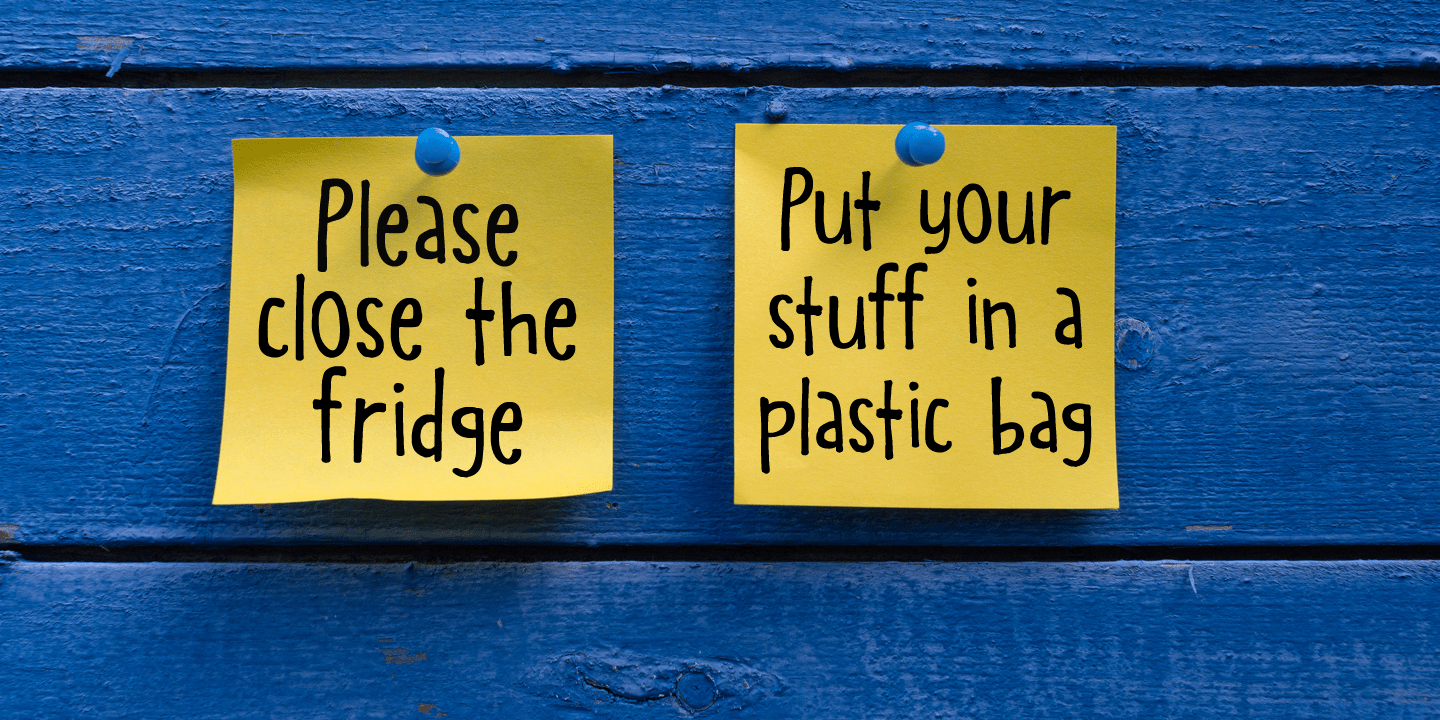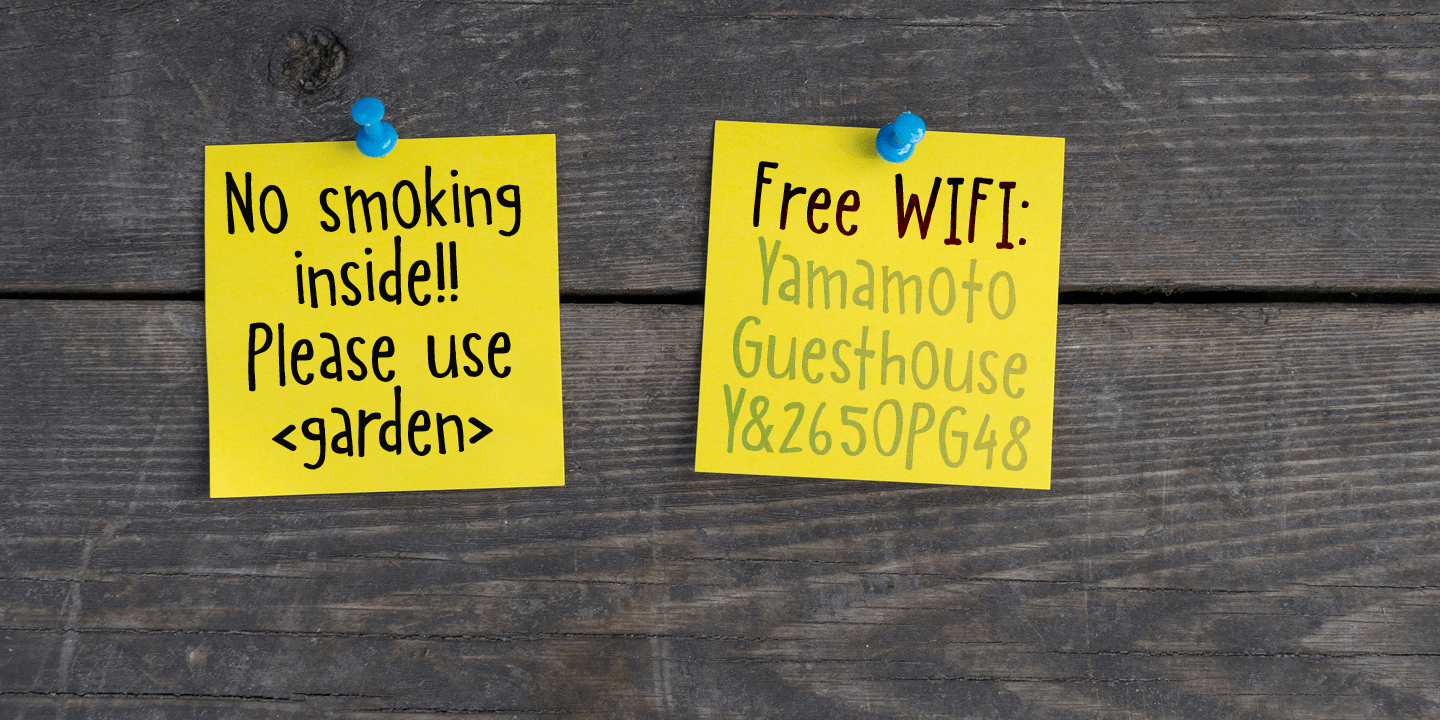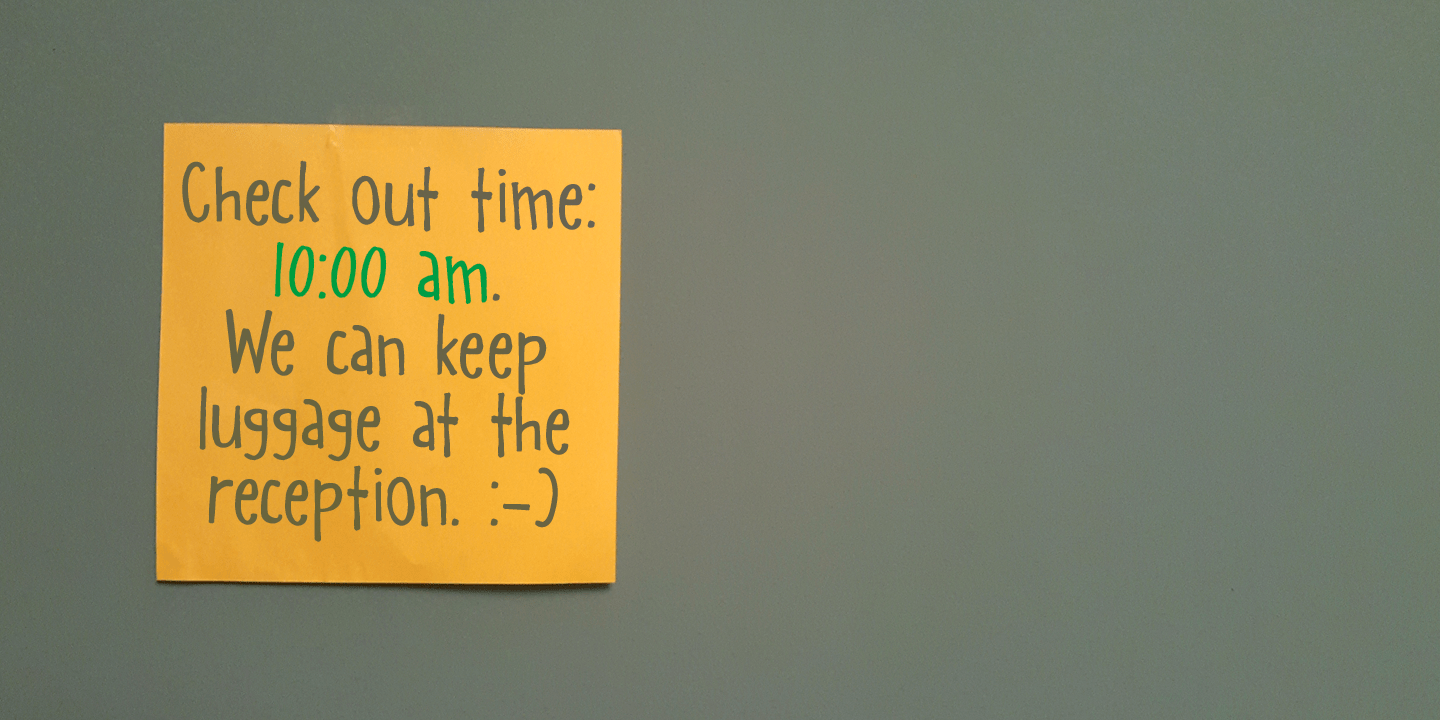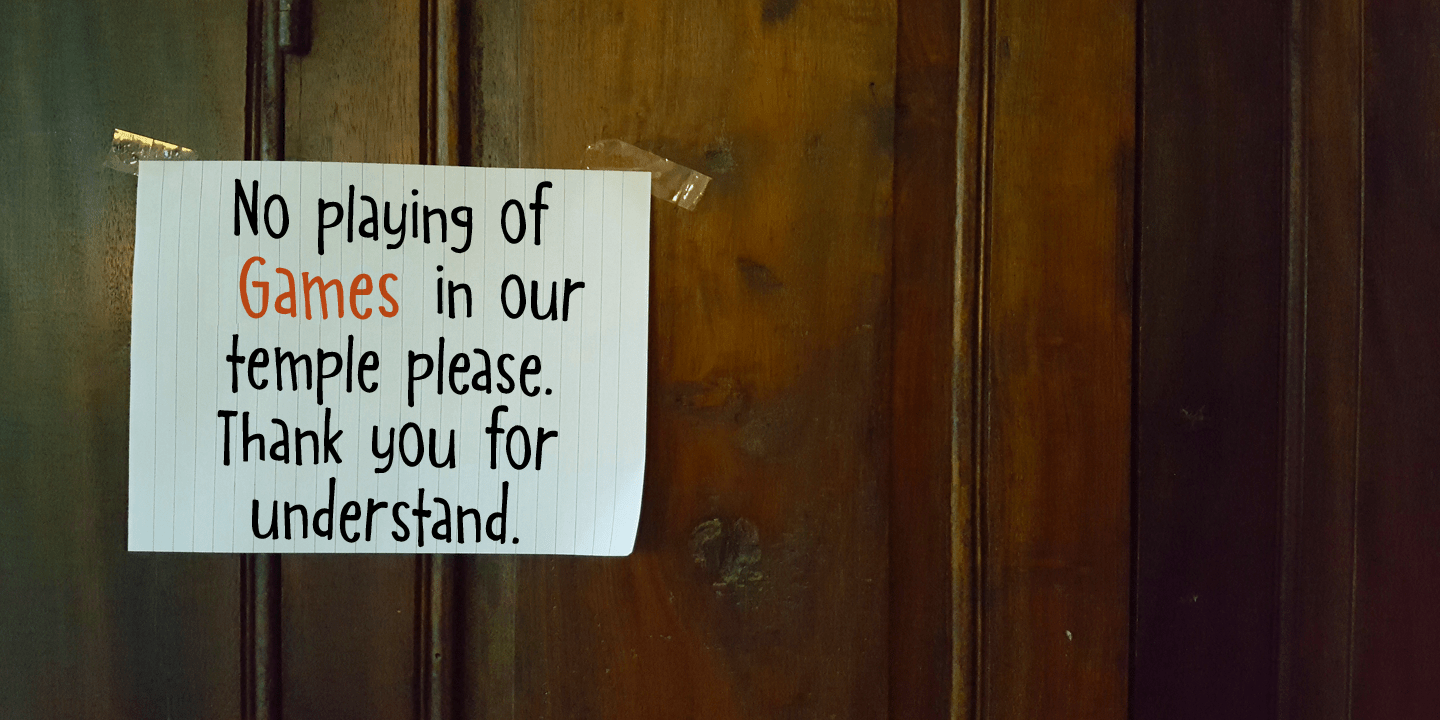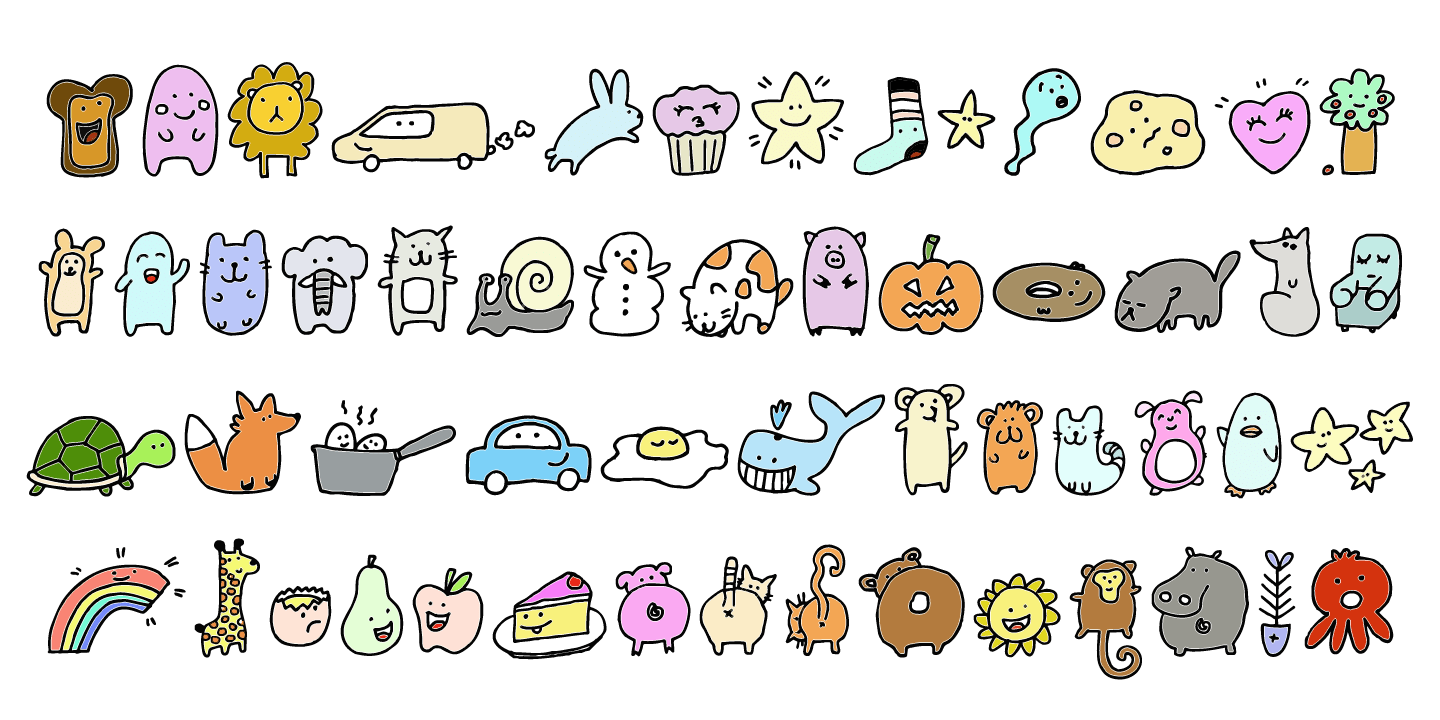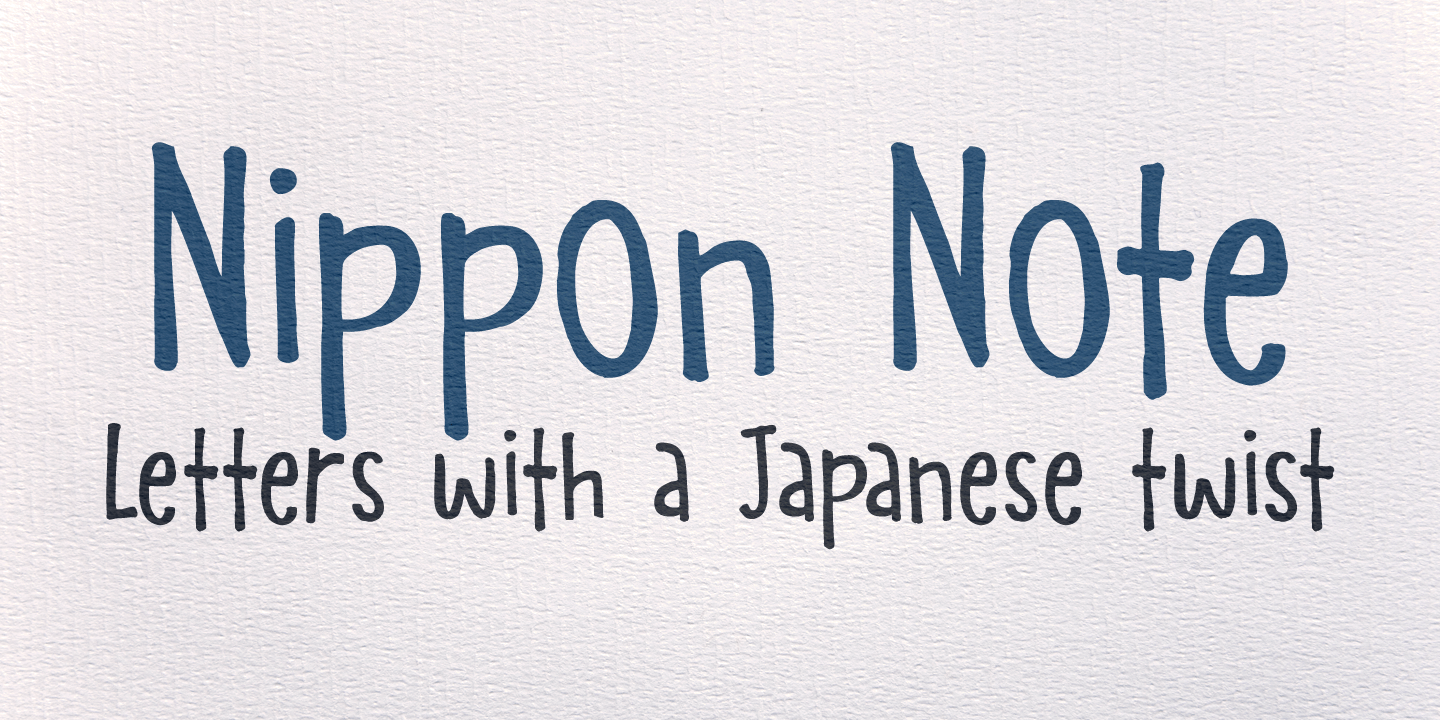
Nippon Note
I just returned from a short holiday in Japan. I stayed in hostels and small guesthouses and noticed a peculiar thing they all had in common: they love little notes, telling you where to go, what to do, how to use the microwave oven and when to check…